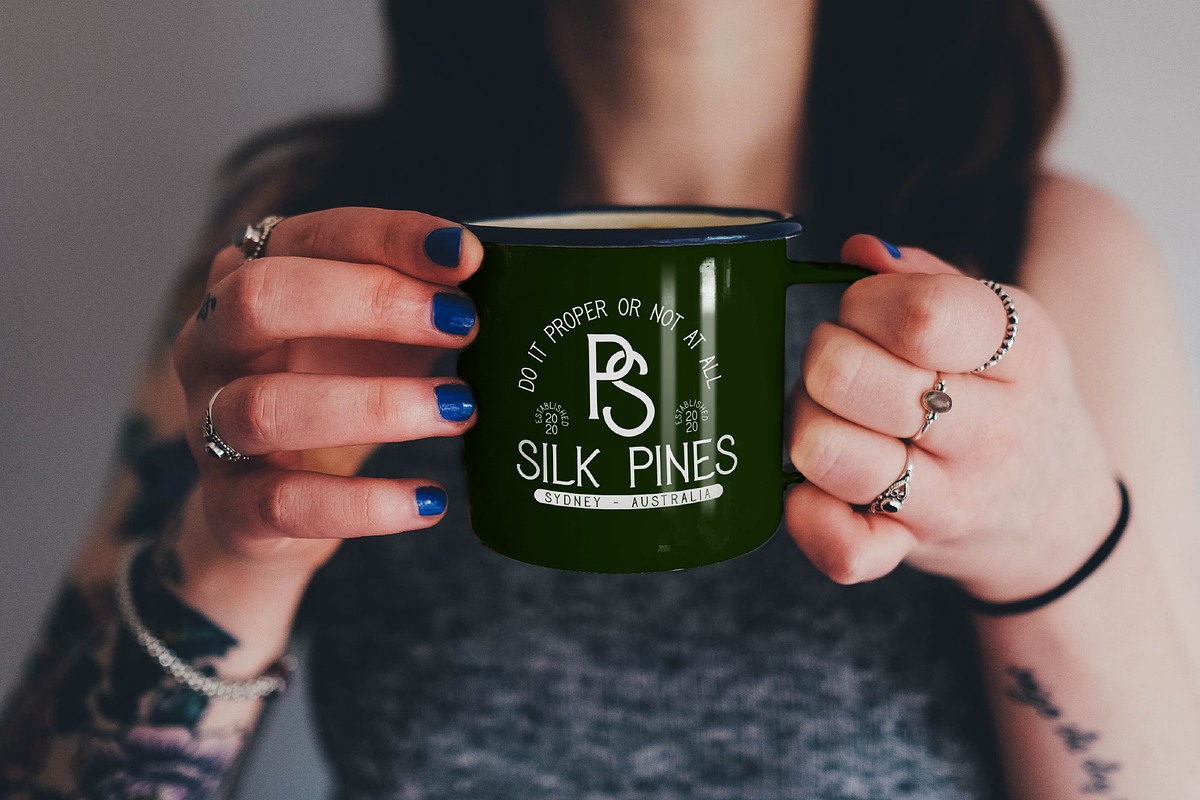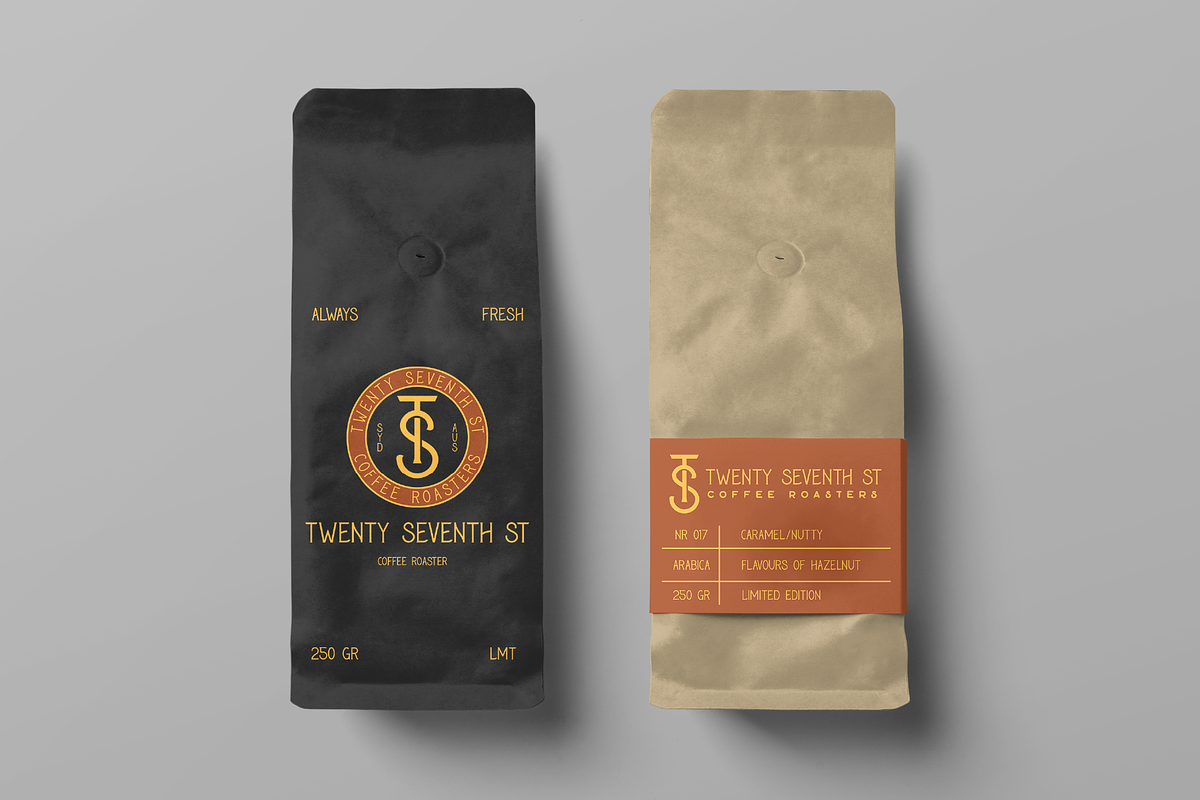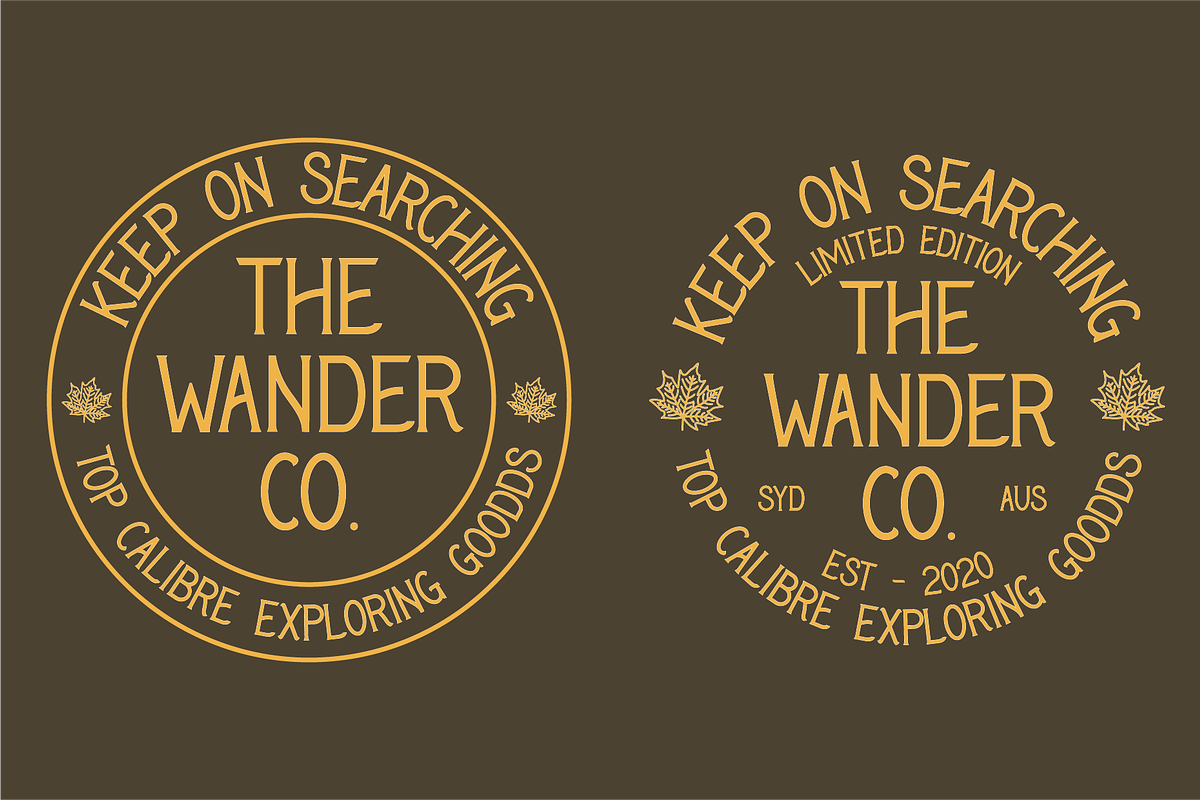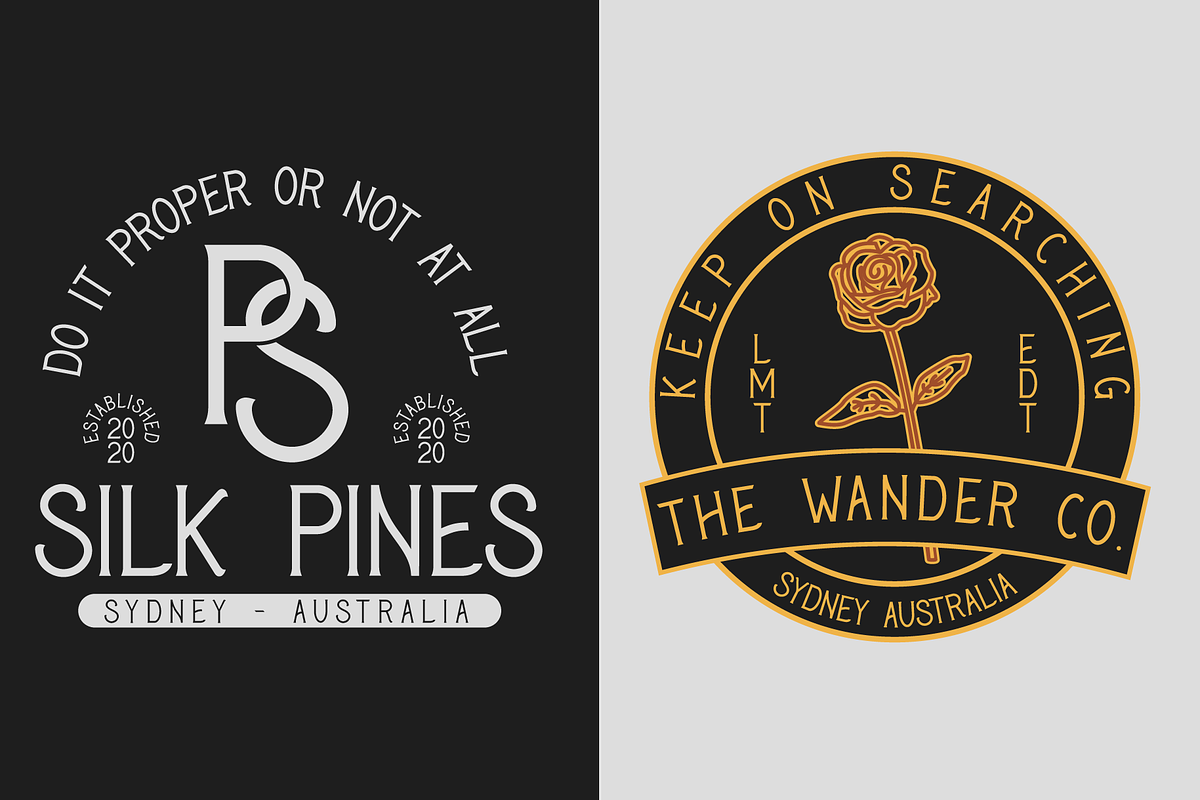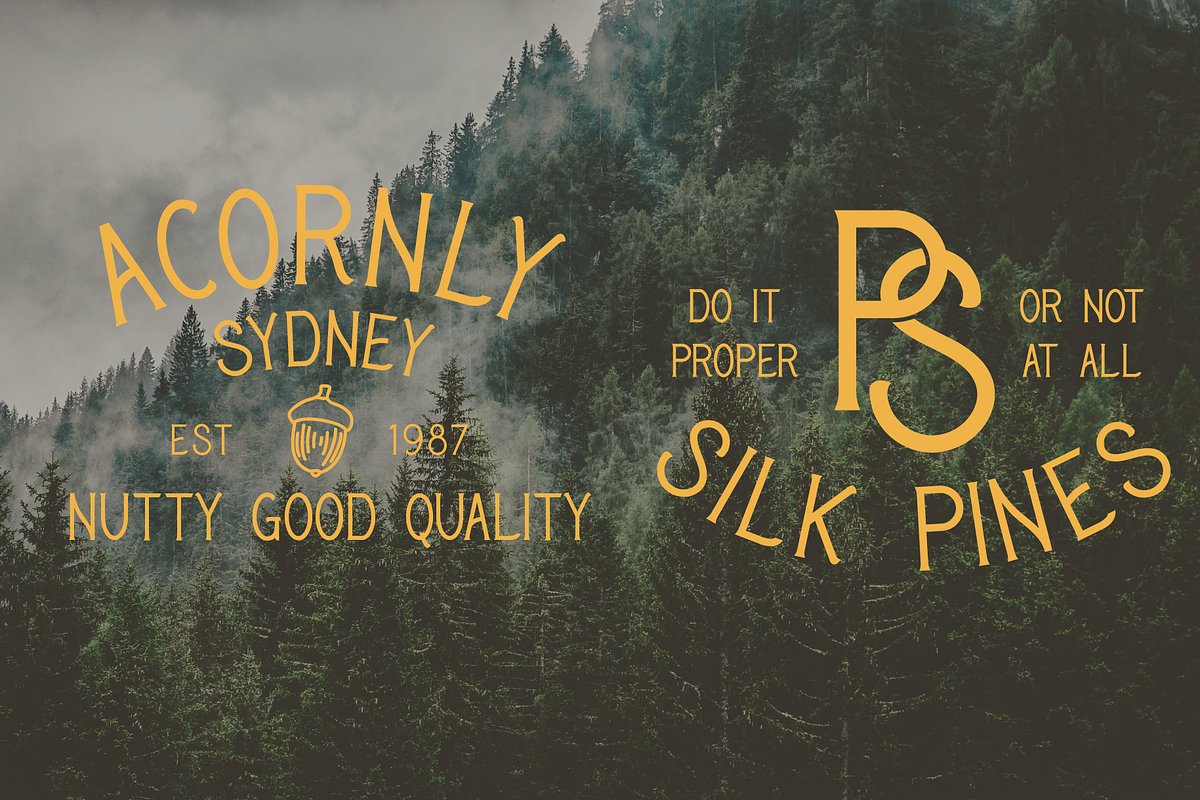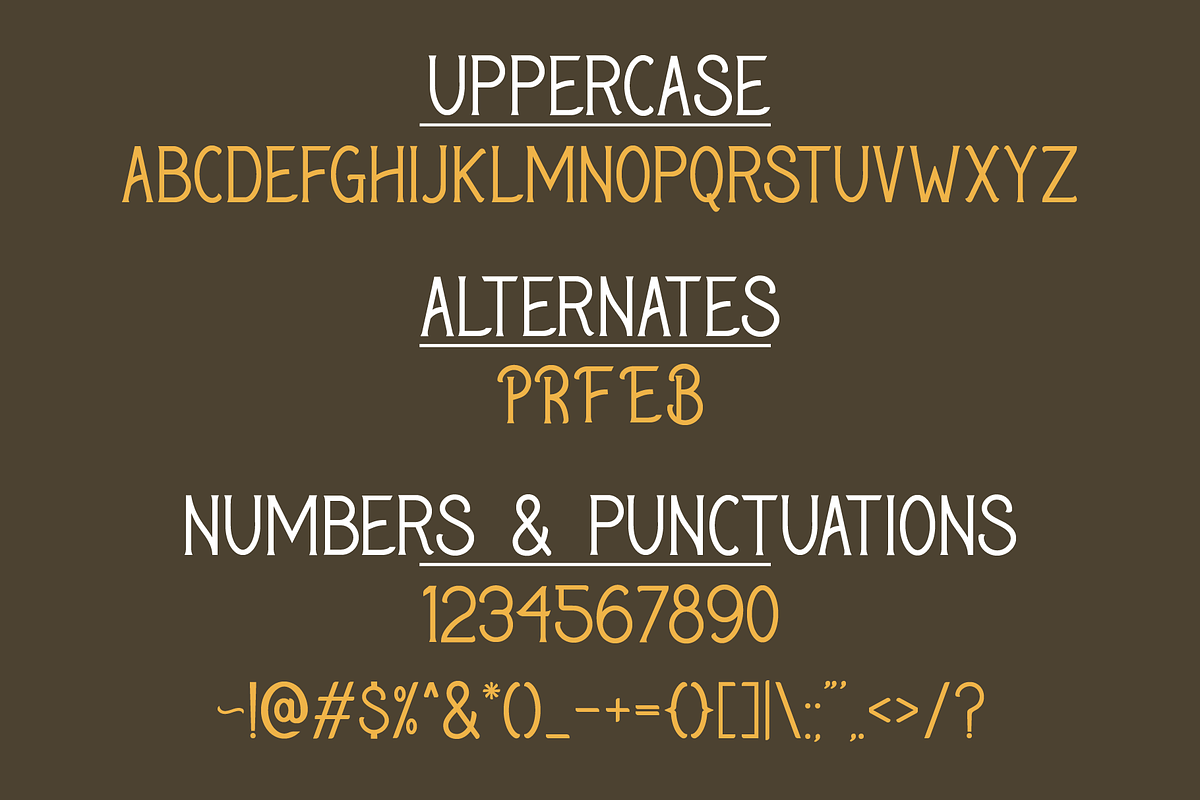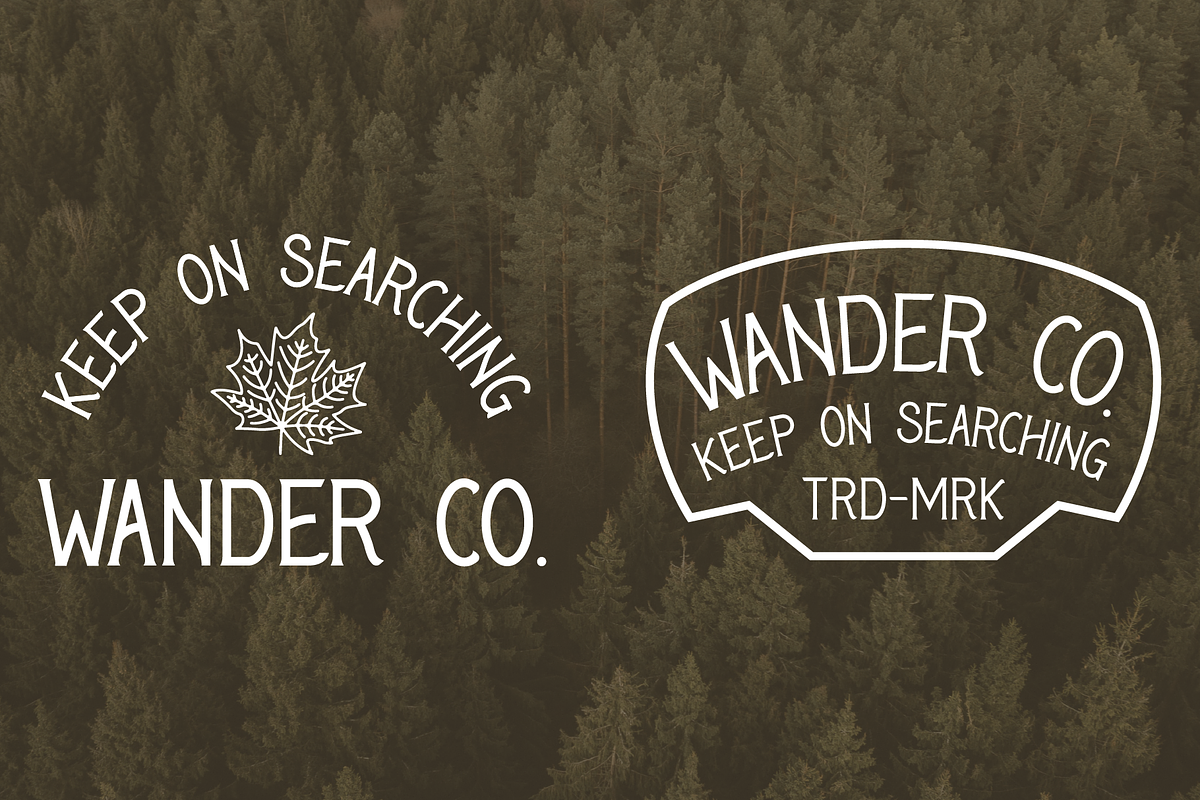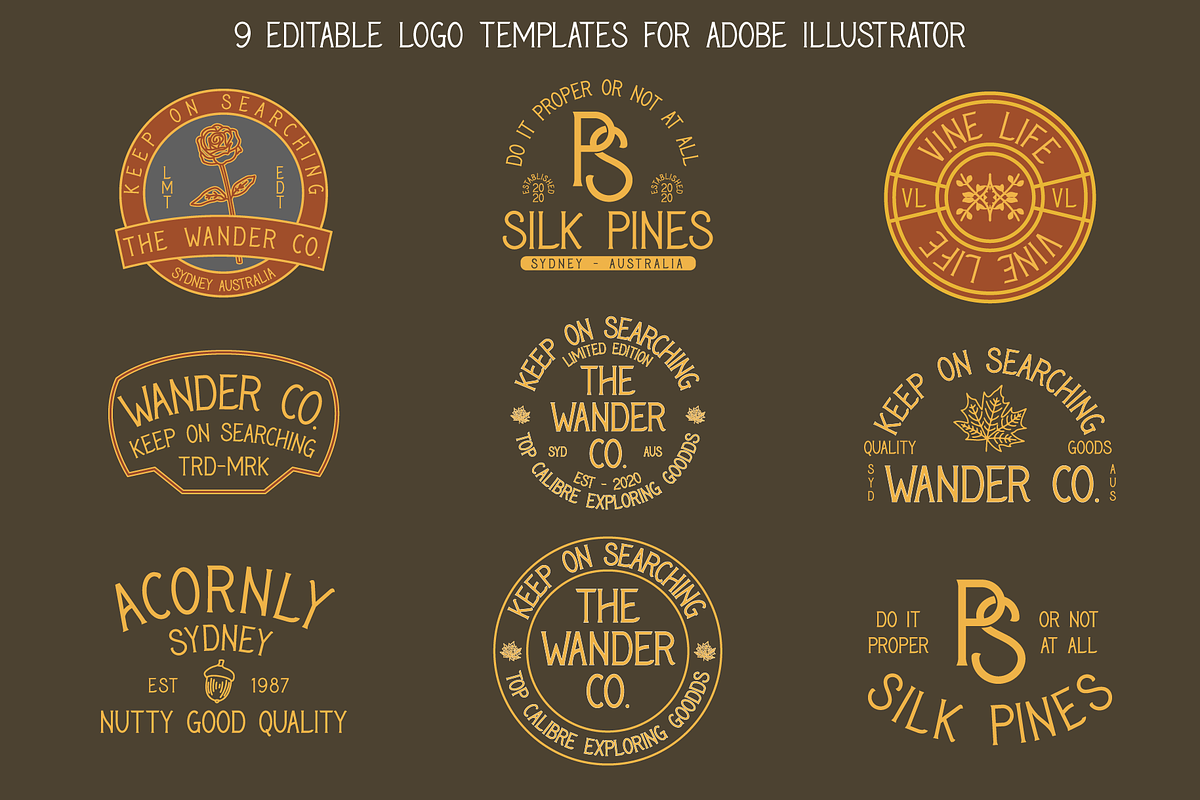
Roadside Pines - Vintage Serif
Remember THAT drive? You know the one I mean. That long road trip you took, when suddenly you found yourself driving through a never-ending tunnel of trees that tower so high you weren't sure where they ended and the sky began. You couldn't help but stop the car and stare up in wonder. The deepest greens you'd ever seen and the overwhelming scent of pine needles and damp earth. That moment when, surrounded by towering ancient trees and glorious silence, the world seemed to stop in its place.
ENTER ROADSIDE PINES.
The perfect blend of class and adventure, Roadside Pines is versatile and full of character. With a subtle serif, fluid letters and additional stylish alternates, it is a stunning font to use for badge design, apparel and merchandise design, packaging and monogramming.
This package also includes a HUGE range of bonus features, including 9 easy-to-use badge templates and bonus vector illustrations, to help streamline your process.
- Additional Stylish alternates for some letters